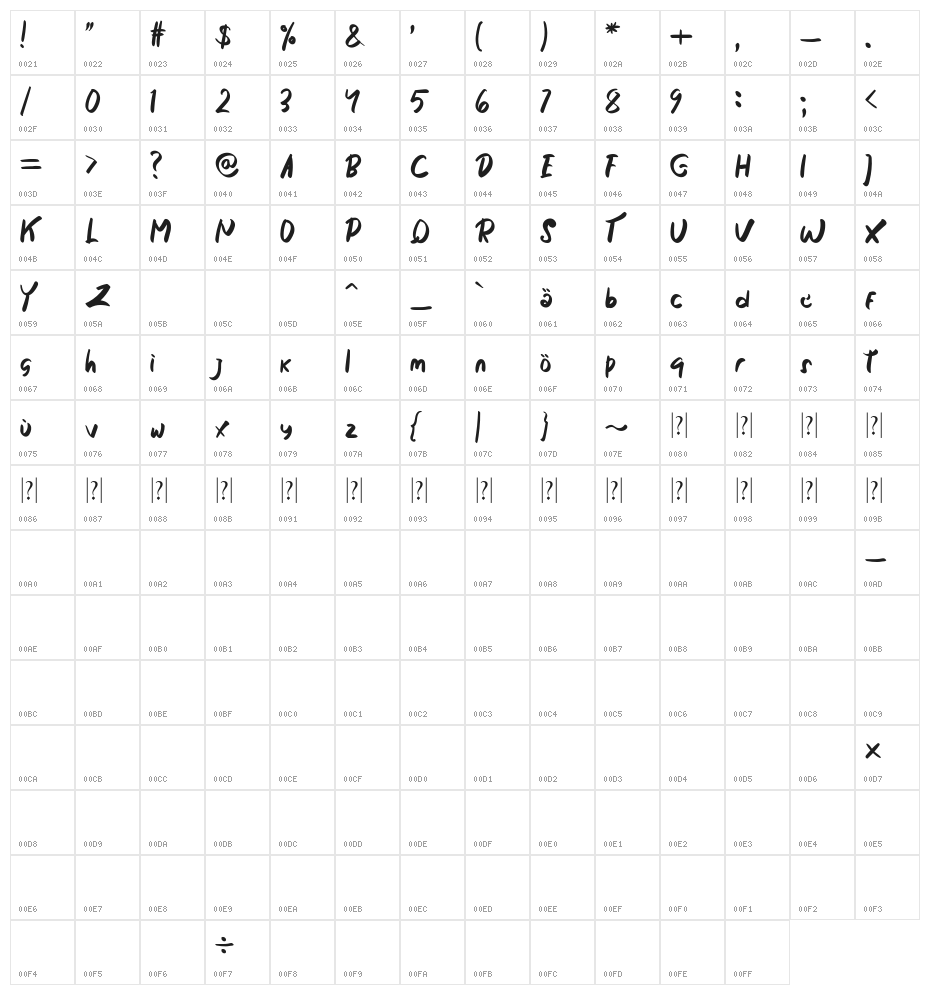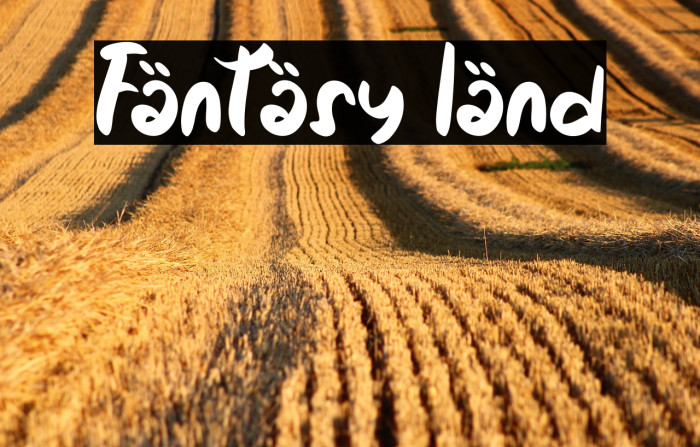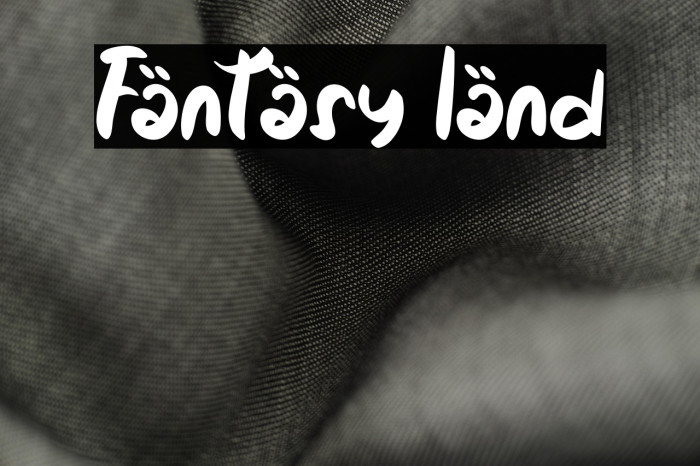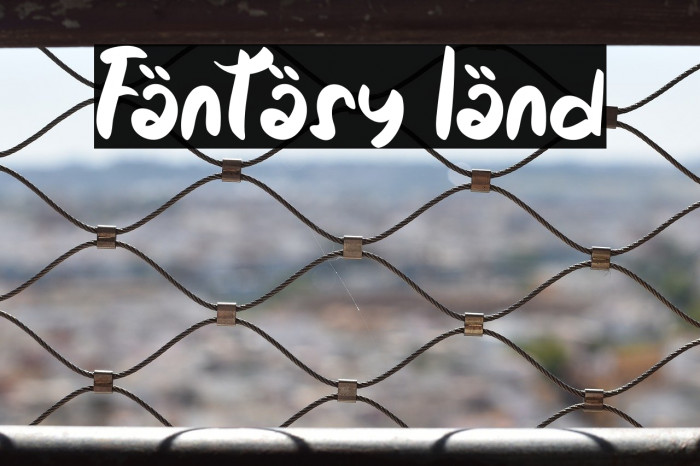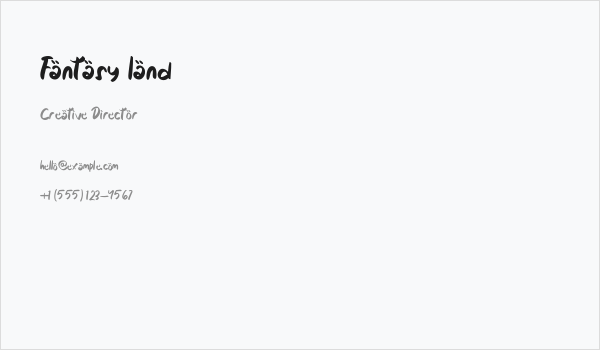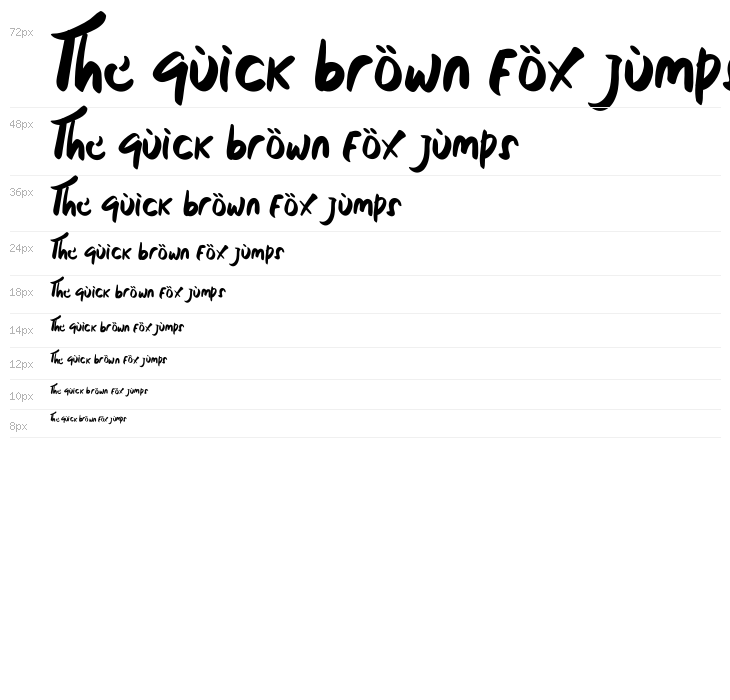
Fantasy land Font
Fantasy land Description
This font features a playful and whimsical style, characterized by its bold and dynamic strokes. The letters have a handwritten appearance, with a slight slant that adds to its casual and friendly vibe. The uppercase and lowercase letters are well-balanced, maintaining a consistent flow throughout. Numbers and special characters are designed to match the overall aesthetic, ensuring a cohesive look. The font's unique personality makes it stand out, making it suitable for creative and informal projects.
Overall StylePlayful
Use CaseHeadlines, Logos, Creative projects
Proposed ProjectsIdeal for children's books, greeting cards, playful branding, and creative posters.